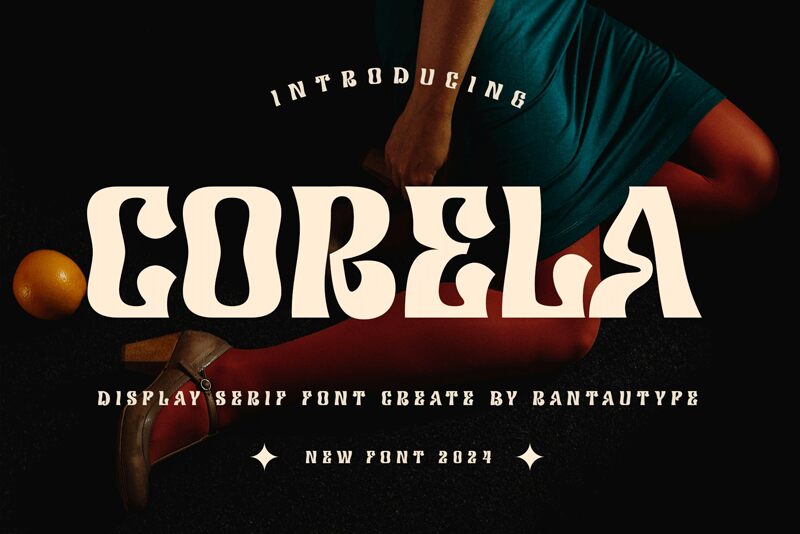
Corela font by Rantautype Studio is a free groovy display typeface with inky, undulating shapes that look like they’ve been hand-poured rather than drawn. Chunky silhouettes hug tight counterspaces, giving each letter a bold, poster-like presence, while the wavy contours keep the rhythm loose and musical instead of rigid. It feels like a lost ’70s headline face discovered on an old record sleeve-thick, playful, and just a little wild.
Using Corela, this free font shines on retro posters, album covers, branding for cafes or bars, packaging, social graphics, and event flyers that need a loud, funky voice. Its heavy weight loves large sizes, so let it take over your titles and pair it with a clean, simple sans serif for body text to keep layouts readable.